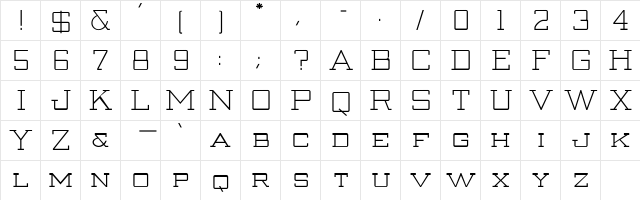
Thanatos Regular
Design Context for Thanatos Typeface
Thanatos offers clean, dependable letterforms without strong stylistic allegiance, making it a practical choice for designers who need flexibility.